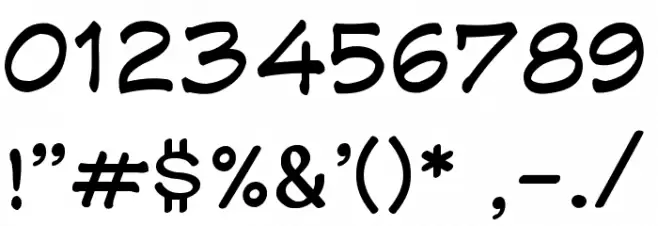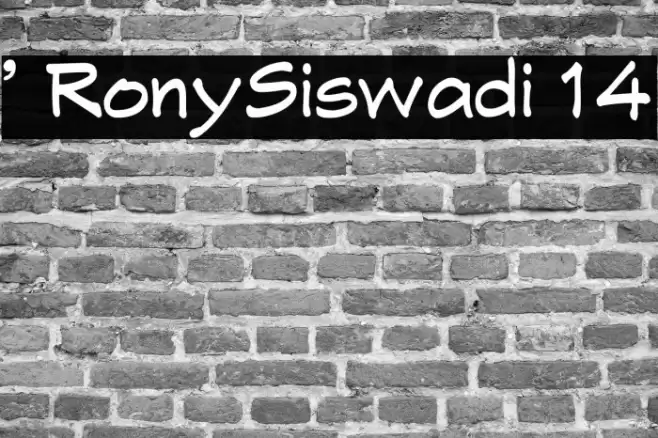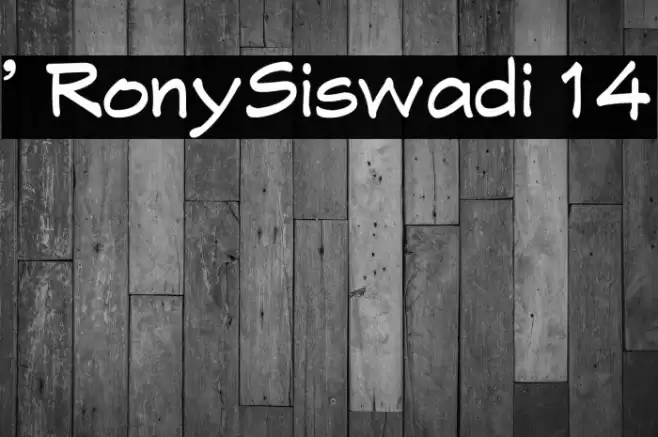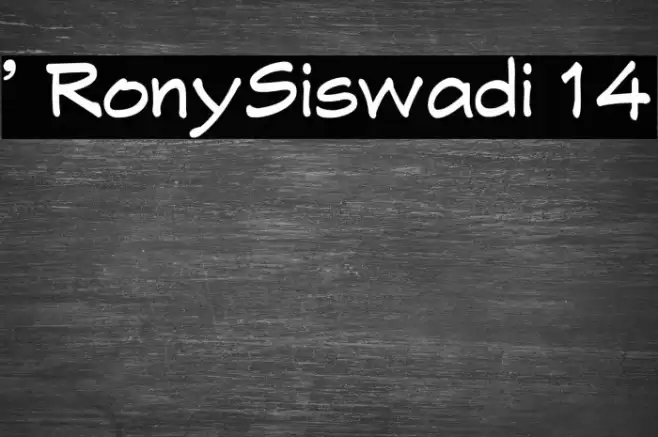
' RonySiswadi 14 Font
' RonySiswadi 14 Description
A casual, handwritten style font with a playful and informal appearance, featuring rounded edges and a slightly irregular stroke pattern.
| Overall Style | Casual, Playful, Informal |
| Use Case | Headlines, Body text, Logos, Invitations |